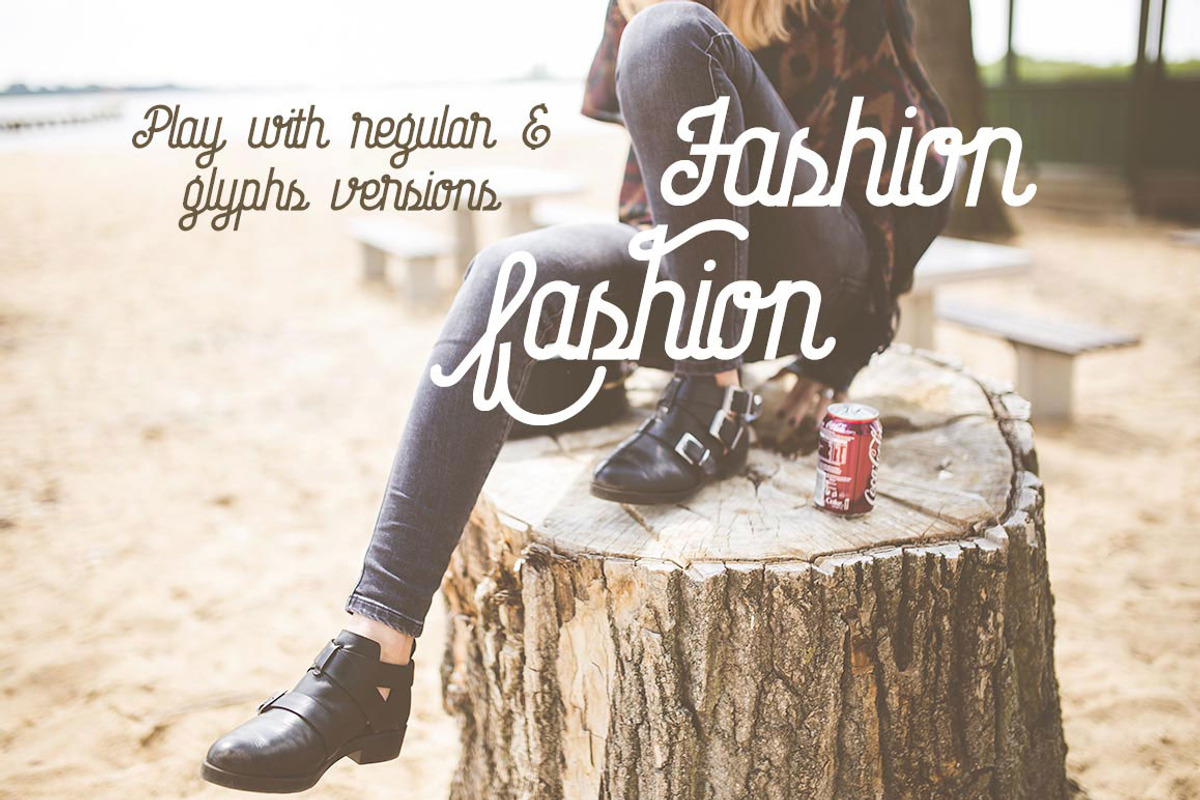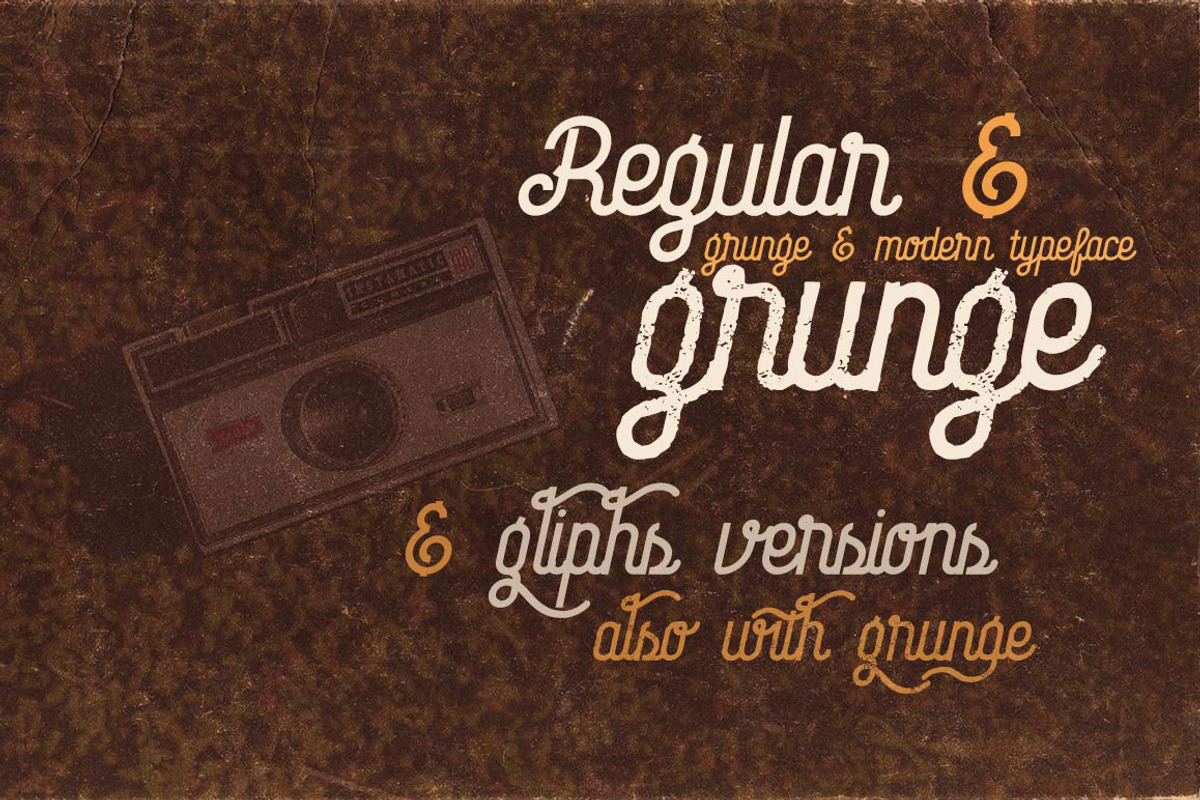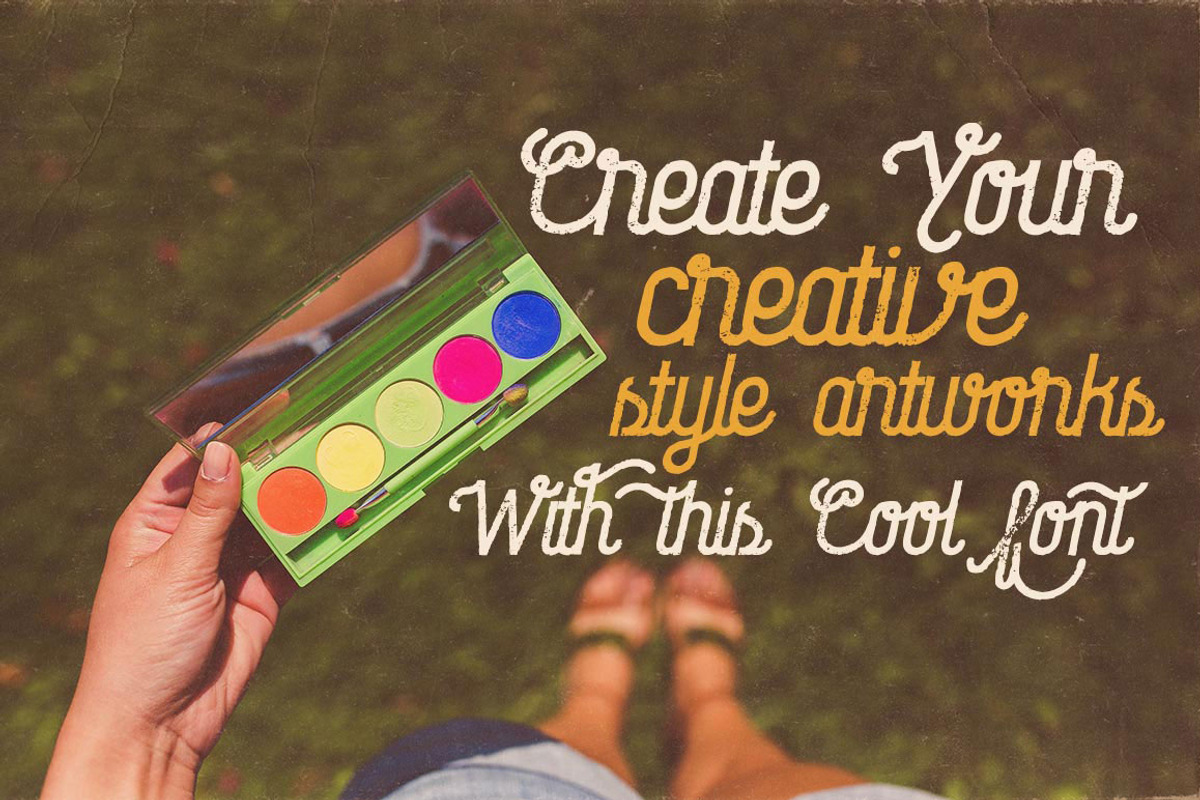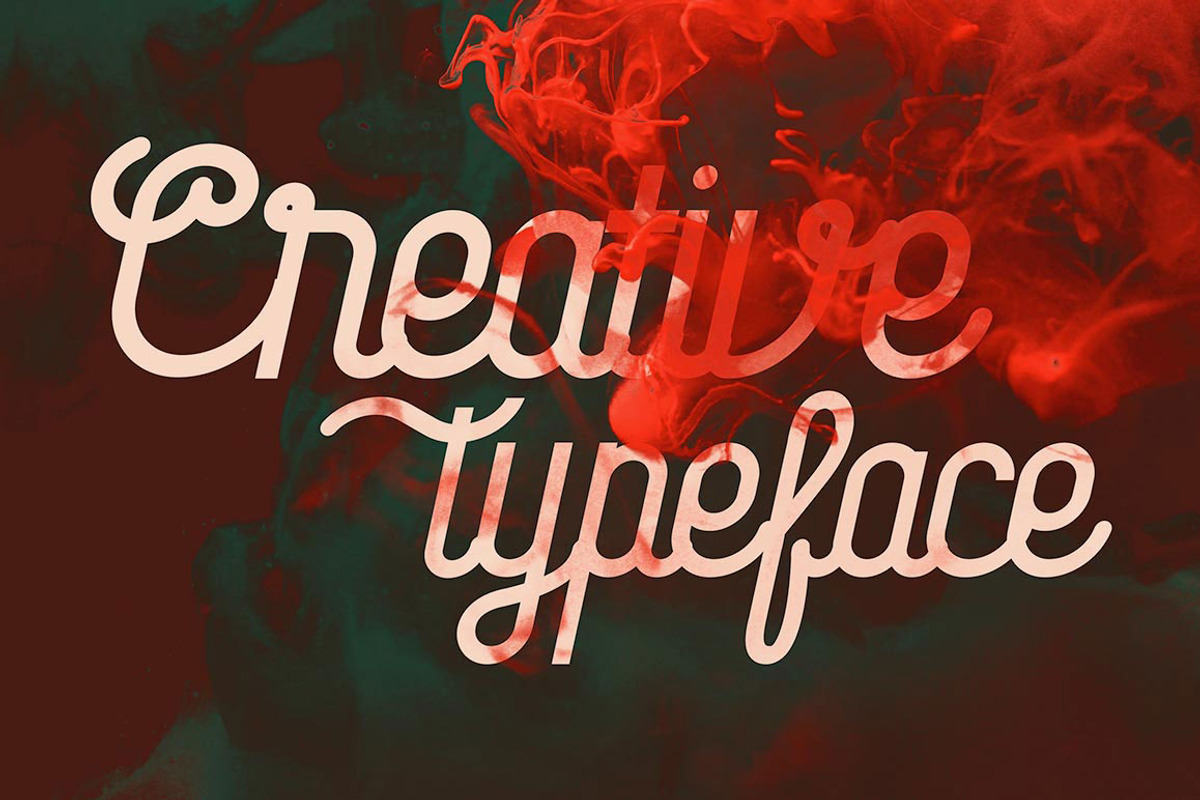
Holiday - Creative Script Font
Holiday - Creative Script Font by JumboDesign is a font selected for branding, posters, packaging, typography.
Why Holiday - Creative Script Font is worth a look
Holiday - Creative Script Font by JumboDesign fits naturally into Branding, posters, packaging, typography.